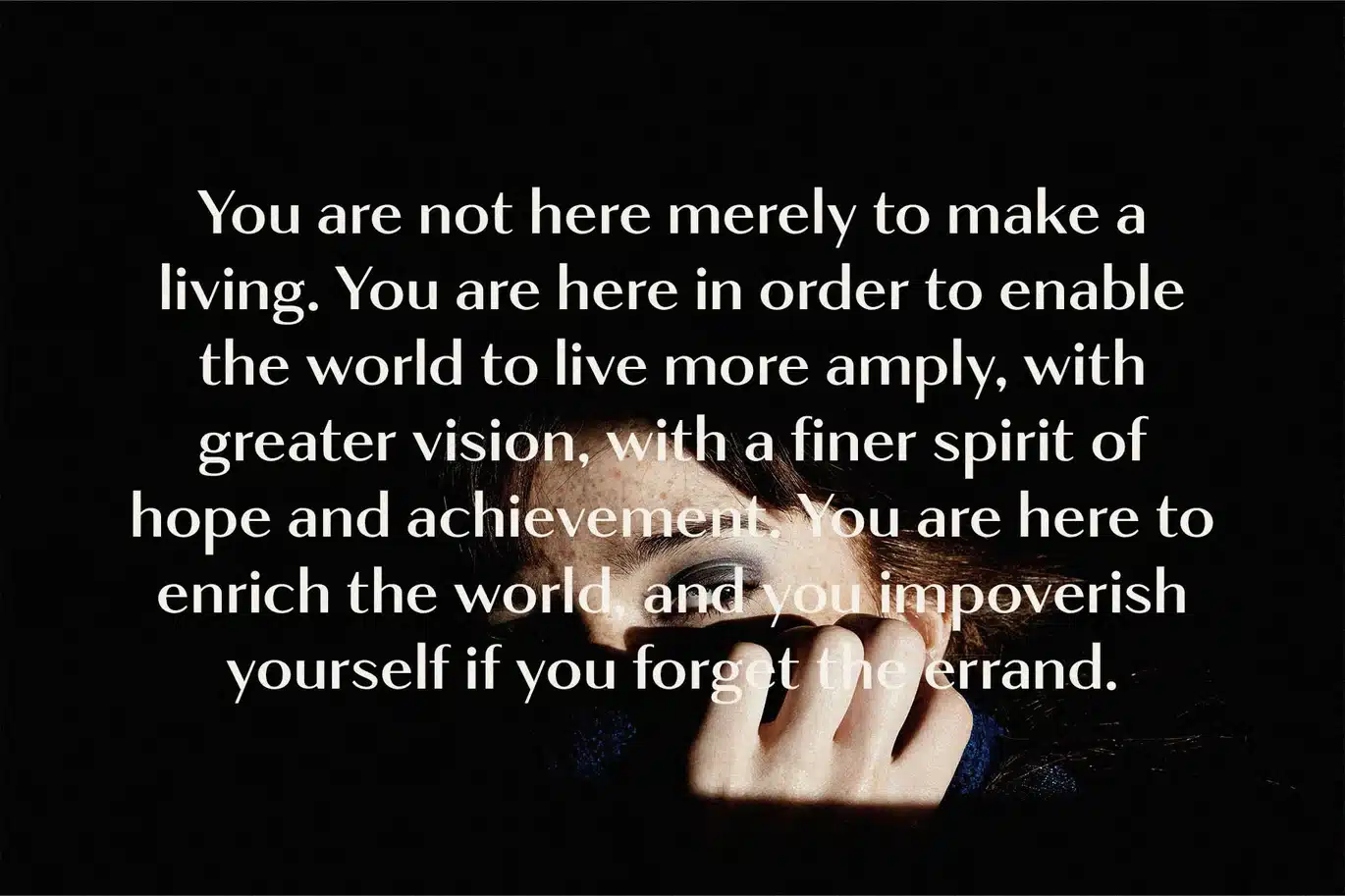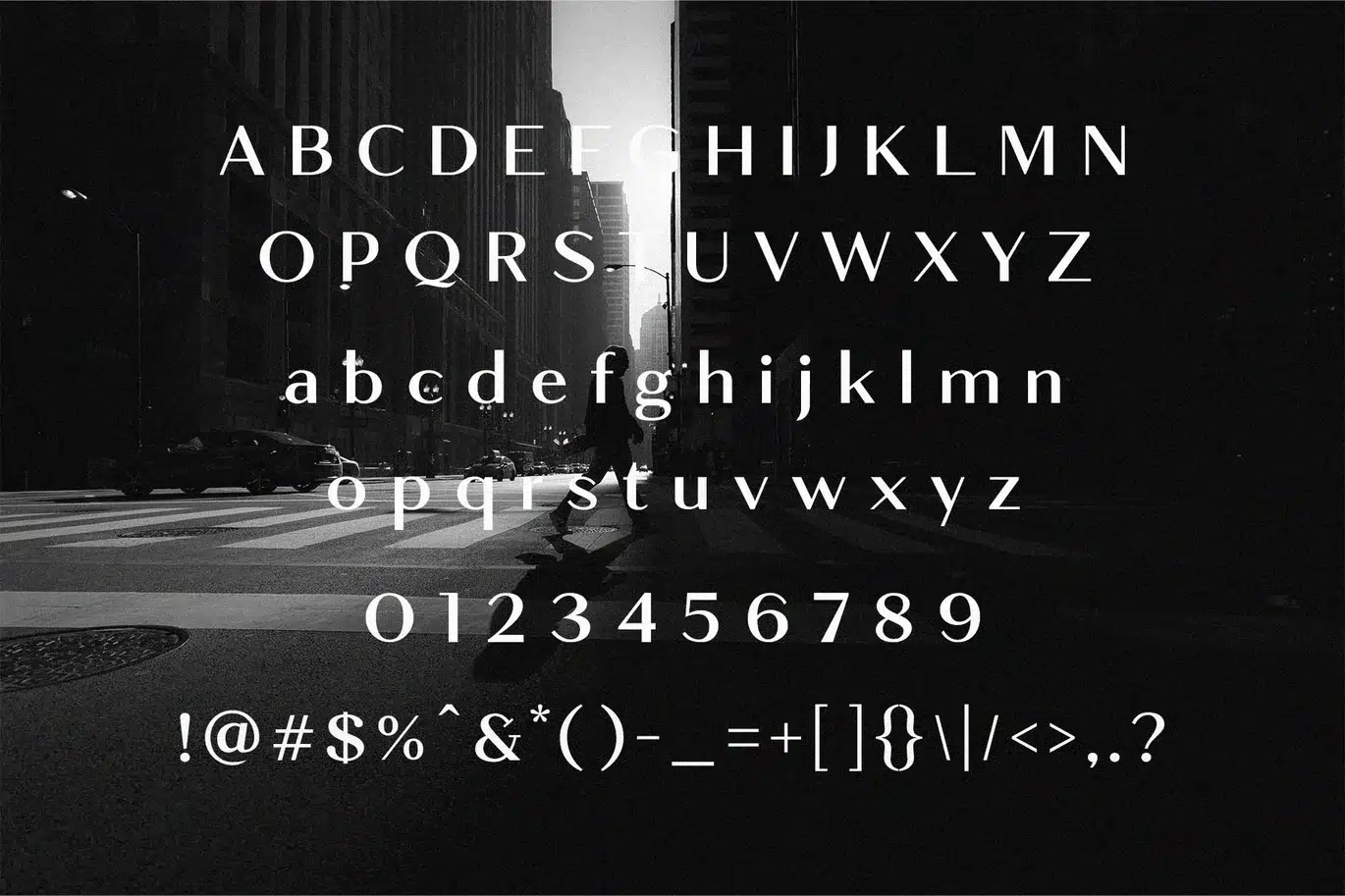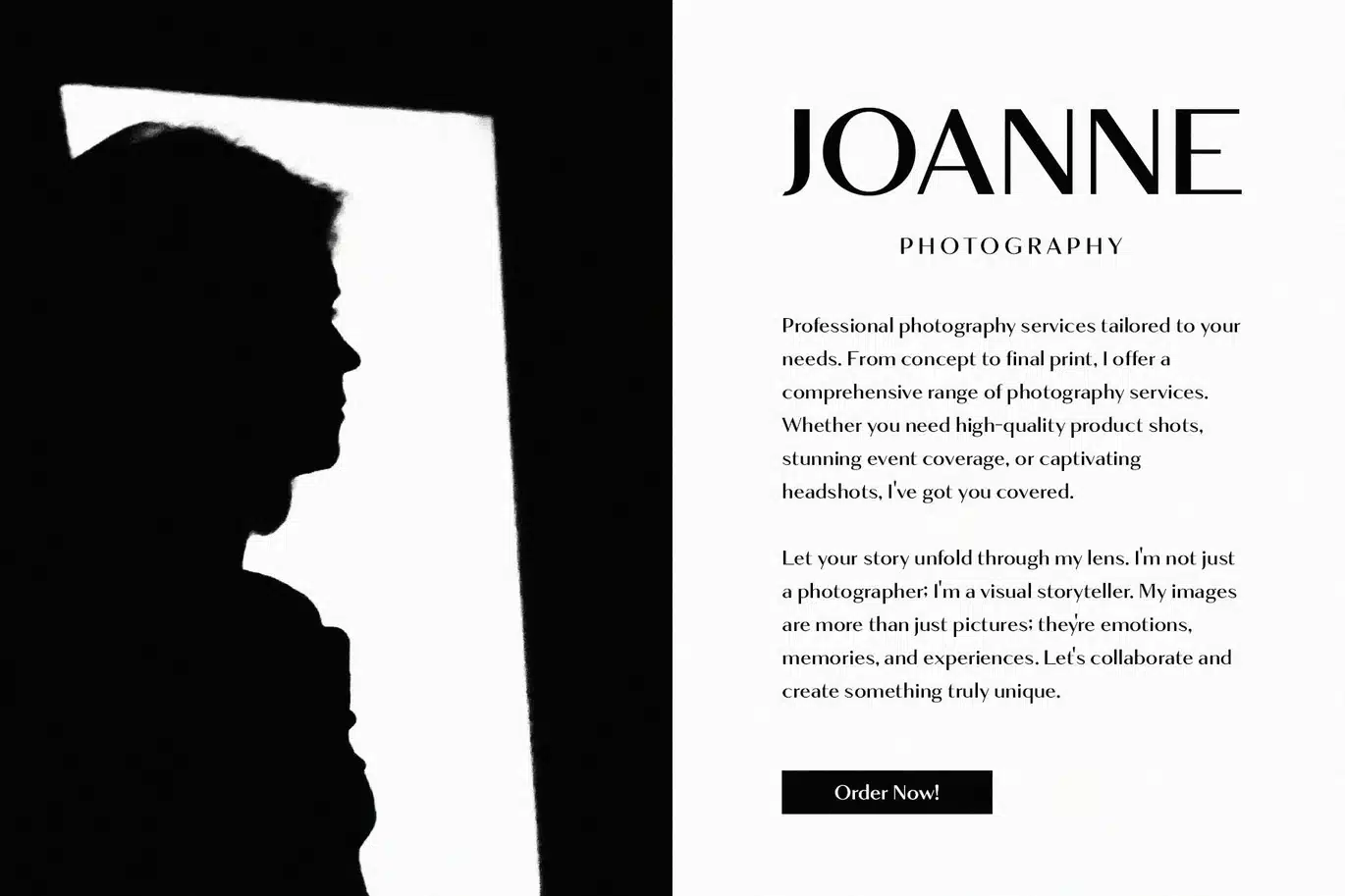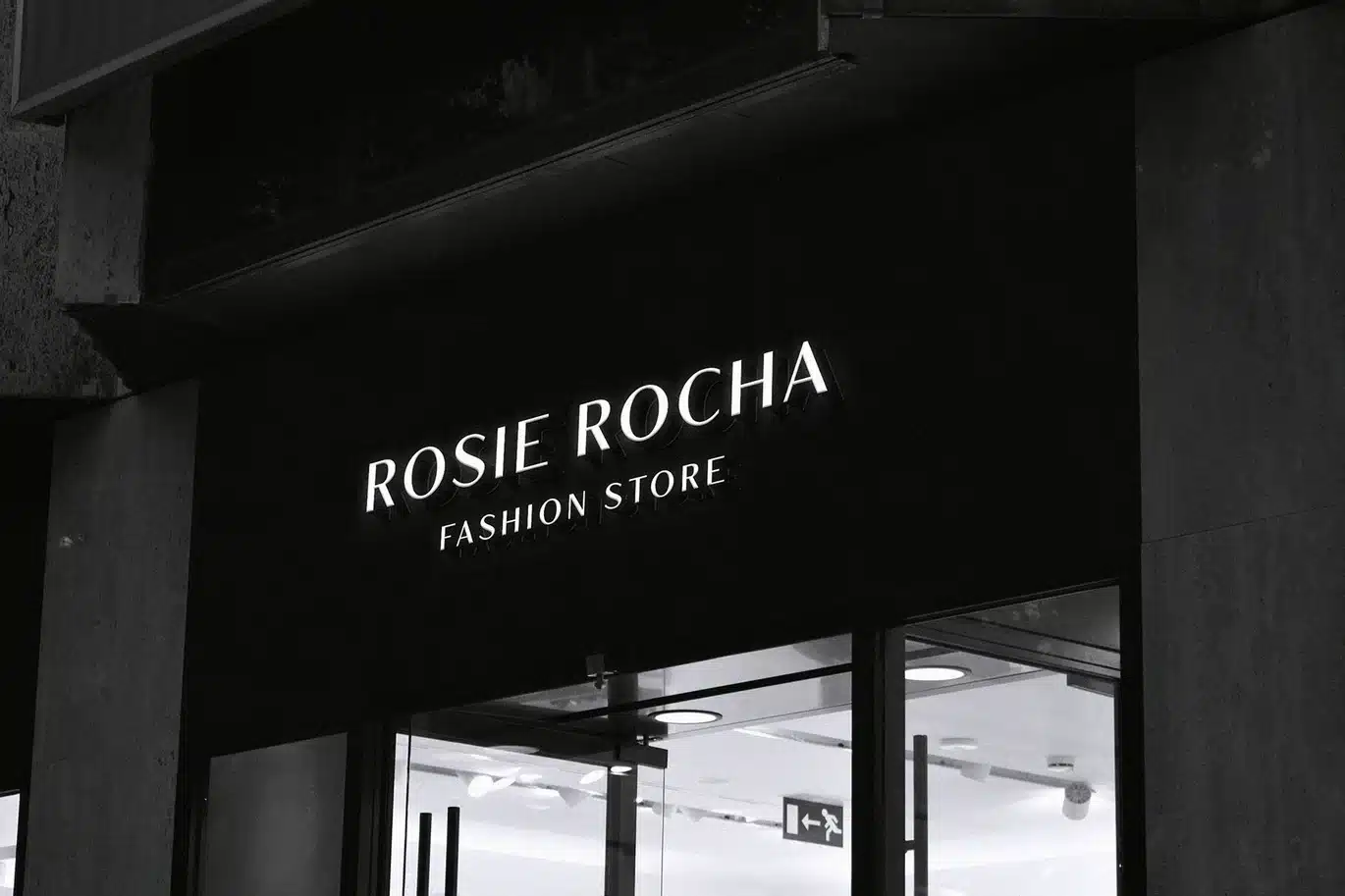
Browie – Modern Sans Serif Font
Introducing Browie - Modern Sans Serif.
Browie is a modern and simple font, best used as a display for headings, logos, branding, magazines, product packaging and invitations.